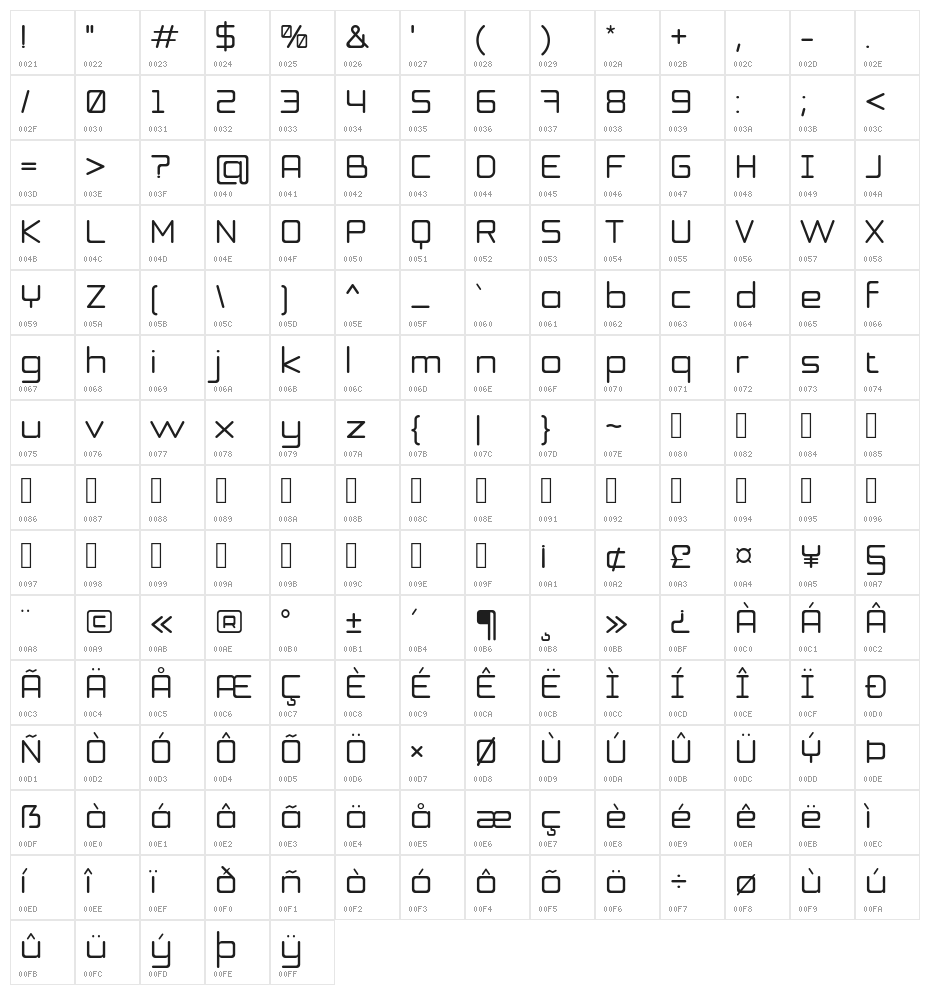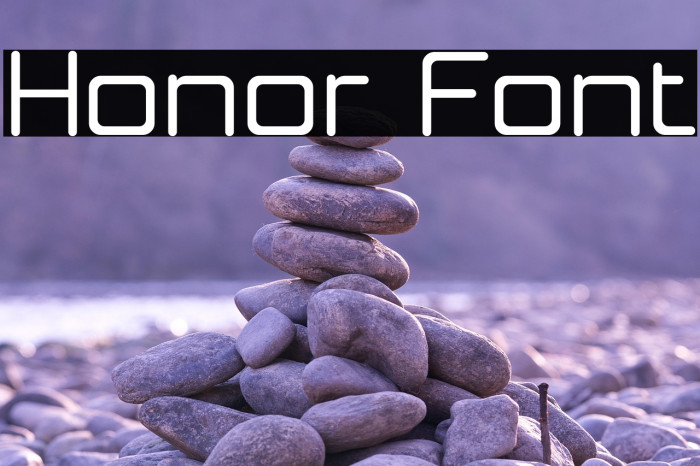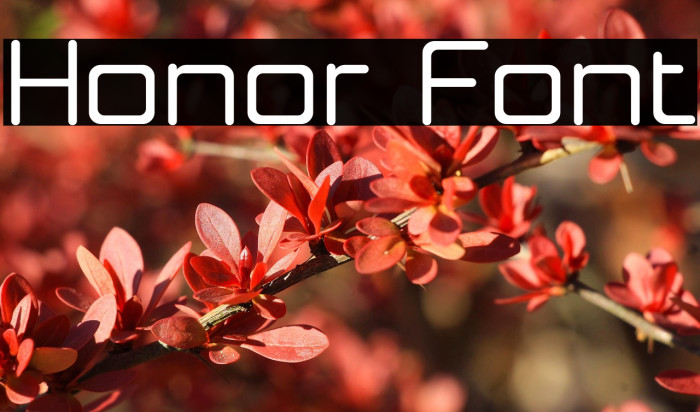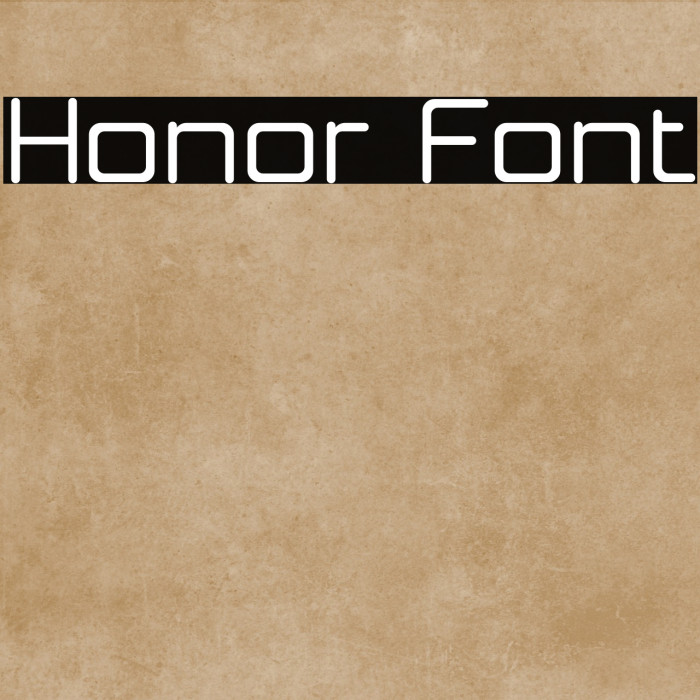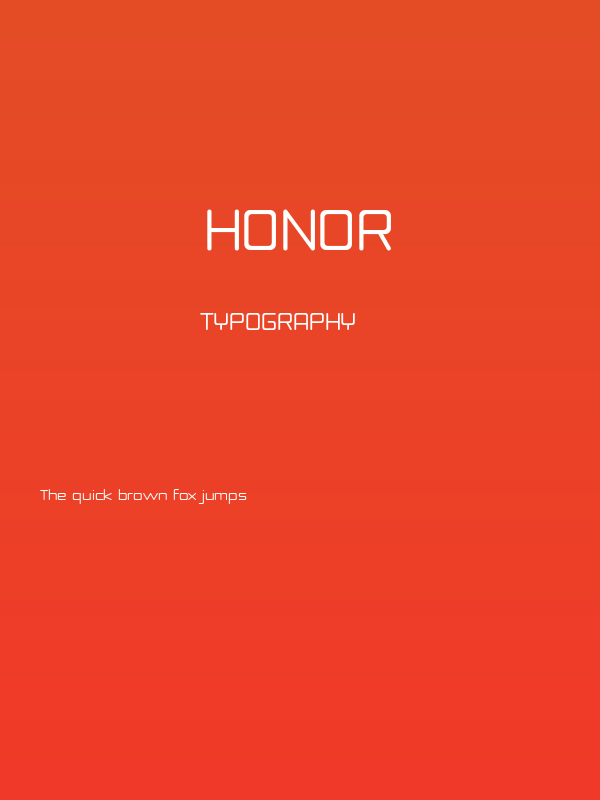
Honor Font
Honor Description
This font features a modern, geometric design with rounded edges, giving it a sleek and contemporary appearance. The characters are uniform in width, contributing to a clean and organized look. The uppercase and lowercase letters maintain a consistent style, with a focus on simplicity and readability. The numerals are clear and distinct, matching the overall aesthetic of the alphabet. Special characters are well-integrated, maintaining the font's cohesive design. The font's structure is ideal for digital and print media, offering versatility and a professional appearance.
| Proposed Projects | Ideal for tech branding, digital interfaces, modern print media, and minimalist design projects. |